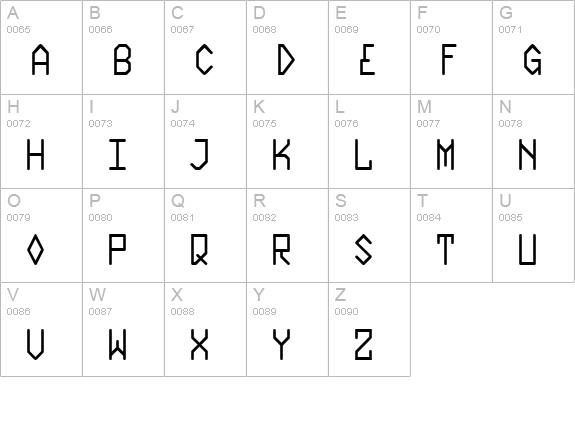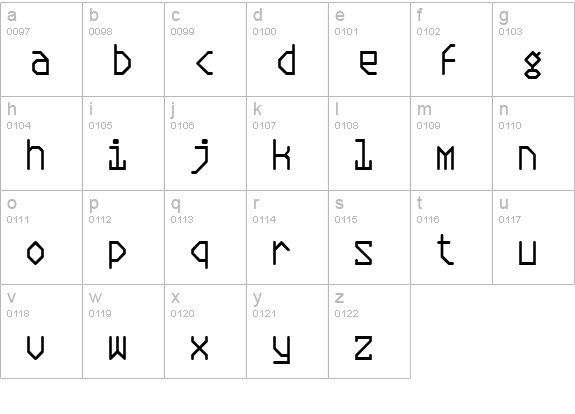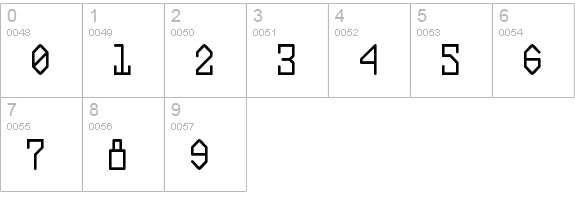
Introducing the captivating and cutting-edge Plasmatic font, a true masterpiece in the realm of typography. With its bold and electrifying design, this font exudes a sense of energy and innovation that is simply unparalleled. Plasmatic is the perfect choice for those seeking to make a bold statement with their creative projects. This font's unique and futuristic style is meticulously crafted to captivate the imagination of any viewer. Its sleek lines and sharp angles create a visual symphony that demands attention and leaves a lasting impression. Plasmatic is a font that effortlessly combines the elegance of classic typography with the modernity of contemporary design, resulting in a harmonious blend that is sure to elevate any project to new heights. One of the most remarkable features of Plasmatic is its versatility. Whether used for headlines, logos, or even body text, this font adapts seamlessly to any context, breathing life into every word it touches. Its legibility remains uncompromised, ensuring that your message is conveyed with clarity and impact. And the best part? Plasmatic is absolutely free! As a testament to our commitment to fostering creativity and accessibility, we are thrilled to offer this extraordinary font as a complimentary download at FontsMarket.com. Now, anyone can harness the power of Plasmatic to bring their artistic visions to life, without any limitations. So, if you're ready to unleash the full potential of your designs, look no further than Plasmatic. With its mesmerizing aesthetics and wide range of applications, this font is a true game-changer in the world of typography. Download it for free at FontsMarket.com and let your creativity soar to new heights.